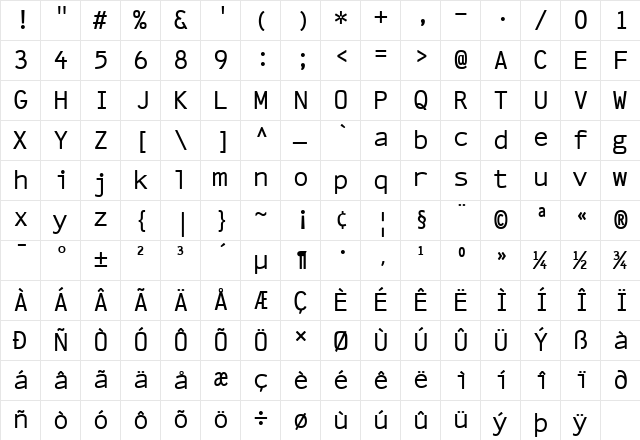
Linefeed Regular Free Font
Linefeed Regular
Design Context for Linefeed
Linefeed is a composed and adaptable typeface that performs quietly and consistently across a wide range of design contexts.